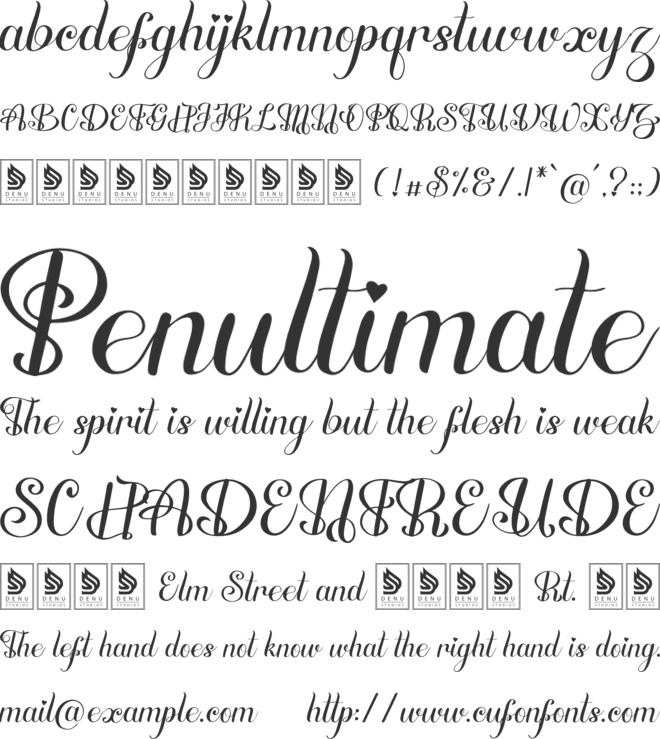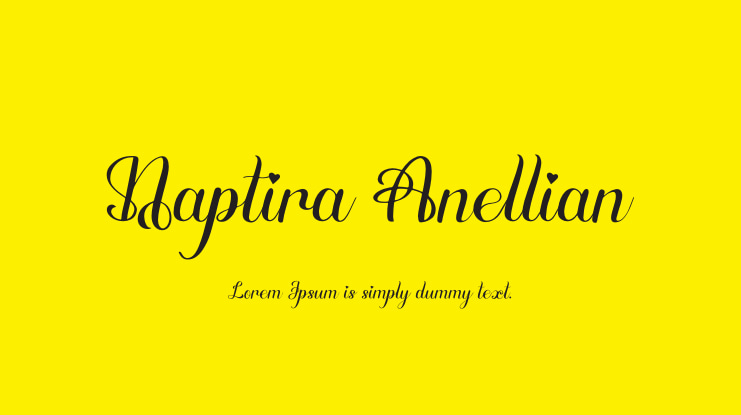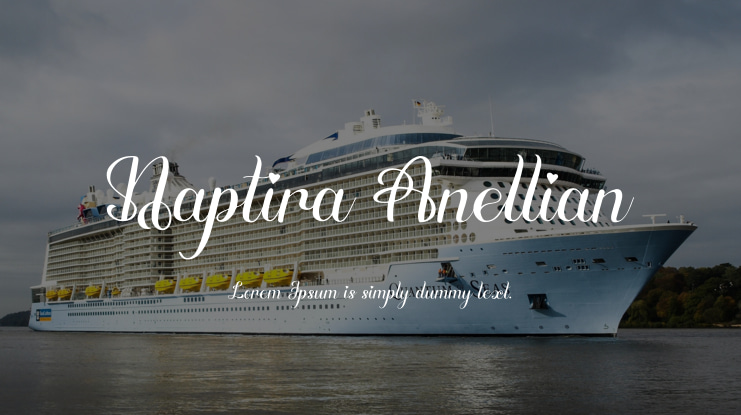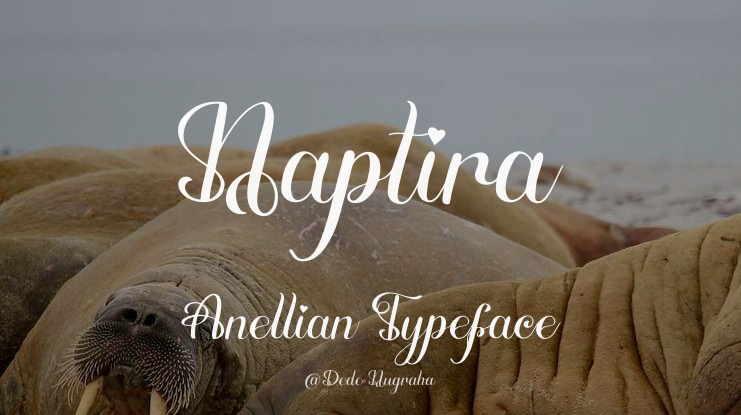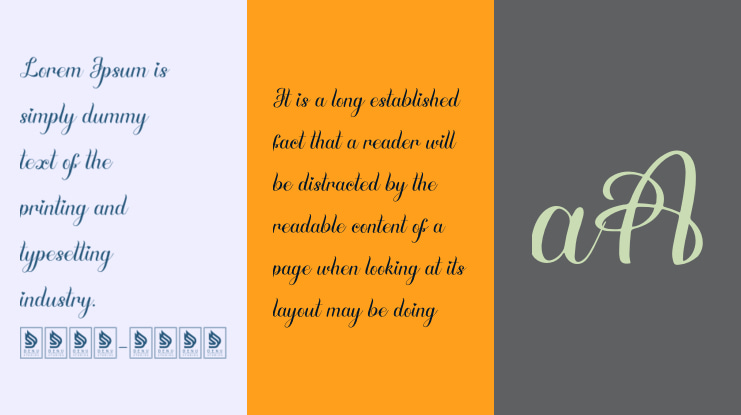
**Naptira Anellian | Modern Beauty Script**
The Naptira Anellian font is perfect for various projects such as logos, branding, homeware designs, product packaging, mugs, quotes, posters, shopping bags, t-shirts, book covers, name cards, invitation cards, greeting cards, labels, photography, watermarks, special events, and any other projects where you want a beautiful script style.